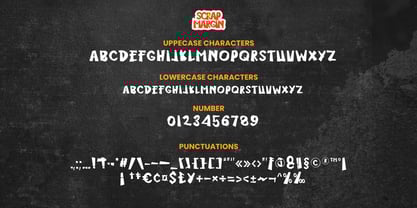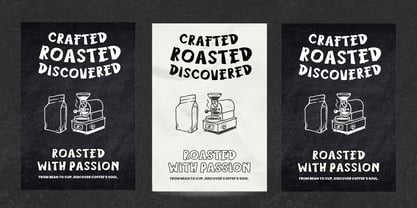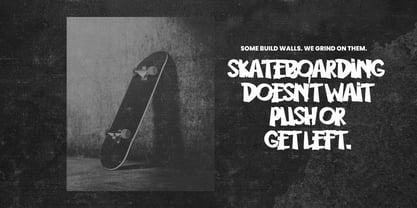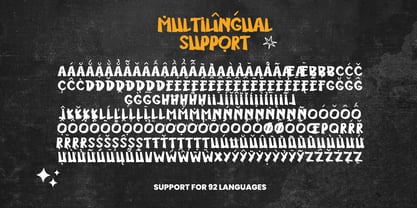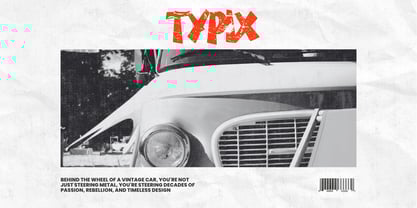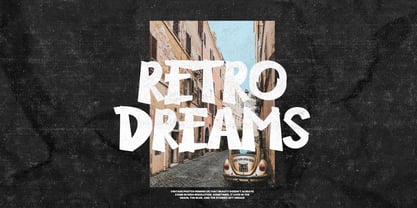
Scrap Margin
by Violatype
The Scrap Margin Font Family was designed by David Kasidi, Hasna Viola and published by Violatype. Scrap Margin contains 1 styles.
Scrap Margin is a bold and experimental display font inspired by the raw aesthetic of cut-out paper letters, underground zines, and gritty street culture. Each character is crafted with intentional imperfection jagged, mismatched, and full of rebellious energy, making it perfect for designs that demand attention and attitude.
This font brings loud personality to everything it touches, whether you're working on band posters, album artwork, streetwear logos, zines, stickers, skate brands, youth apparel, or bold urban design projects.
It's also a great fit for edgy titles, DIY visuals, and anything that embraces chaos with creative purpose.
Scrap Margin doesn’t just speak it shouts. Perfect for projects that need to stand out with style, movement, and raw authenticity.
Designers: David Kasidi, Hasna Viola
Publisher: Violatype
Foundry: Violatype
Design Owner: Violatype